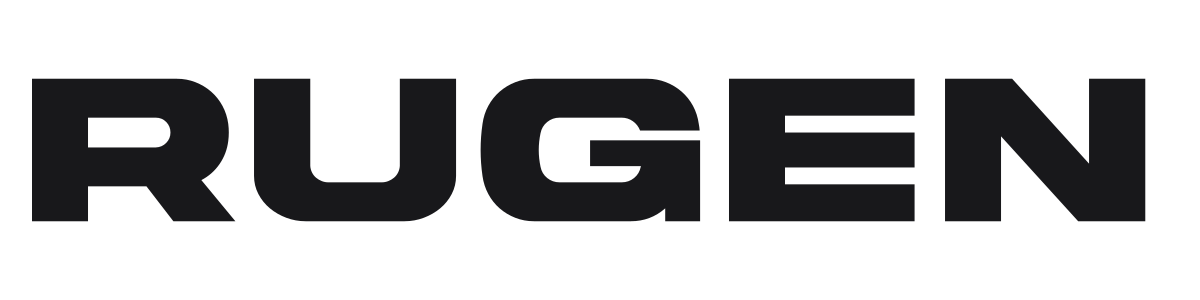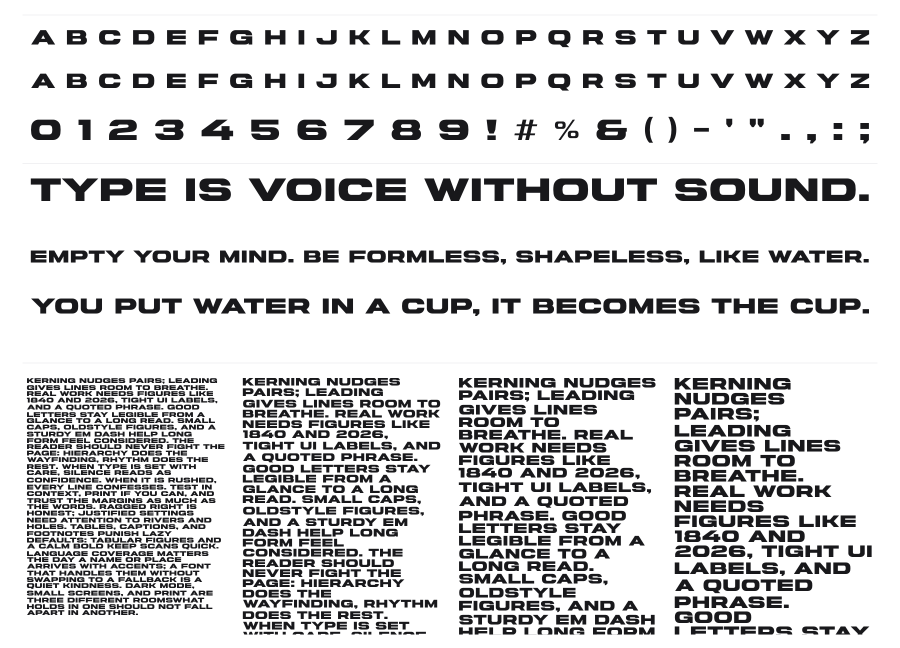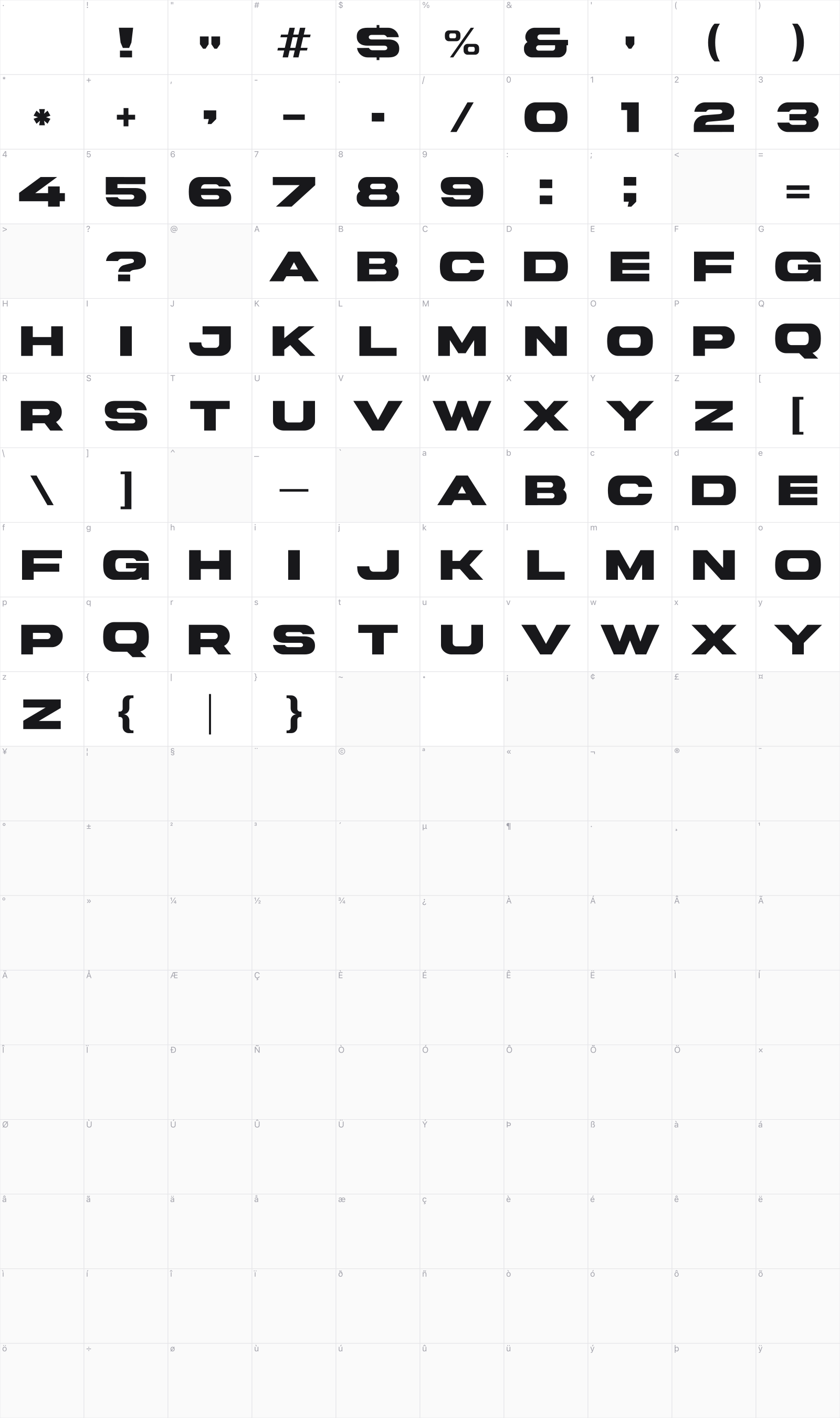
Rugen
Rugen is a wide, heavy expanded grotesque with a powerful, no-nonsense presence. The bold stroke weight and broad proportions pack enormous visual mass into every word, making it a natural choice for sports branding, editorial headers, and poster work. Slightly rounded stroke endings soften the industrial edge just enough to keep it versatile.